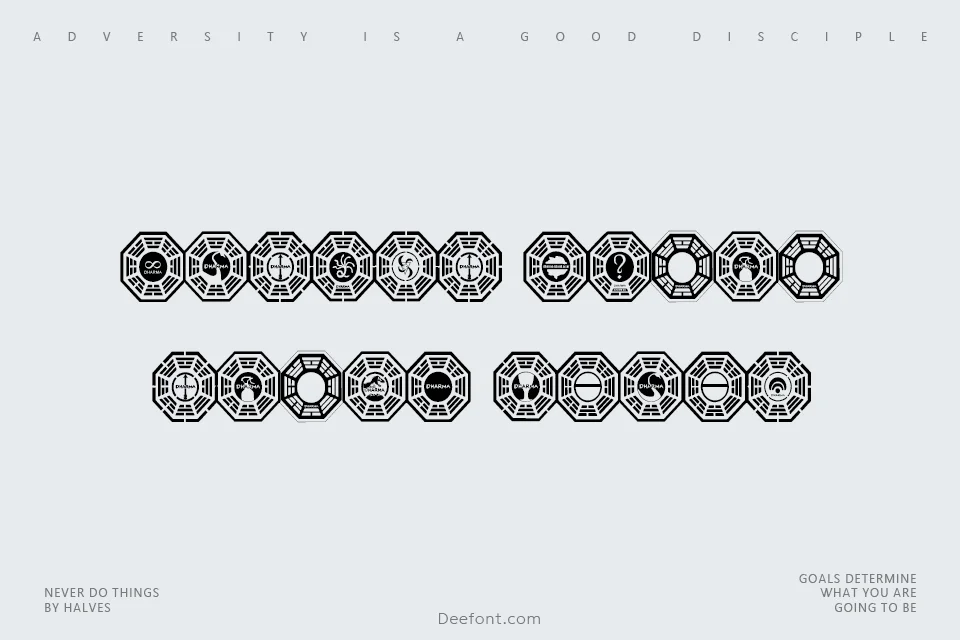
Dharma Initiative Logos Font
Dharma Initiative Logos is a dingbat font inspired by the iconic symbols from the television series LOST. Designed by Steve Ferrera, this font features the distinctive Dharma Initiative logos and Oceanic Airlines branding, including The Flame and The Looking Glass symbols. Perfect for fans of the show and creative projects requiring unique, pop-culture-inspired characters. The font offers a collection of 100 glyphs showcasing memorable emblems from the series, making it an excellent choice for themed designs and nostalgic typography projects.